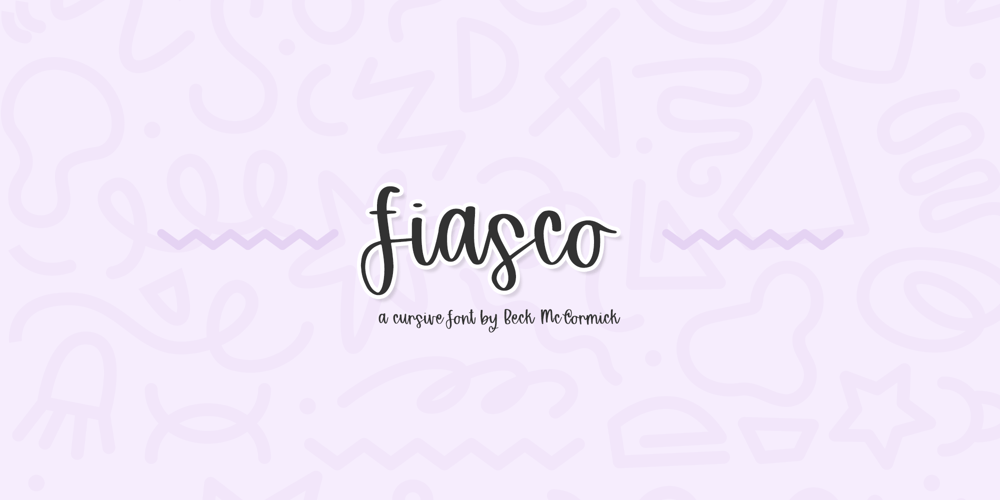
Fiasco Cursive Font Font Family was designed by Beck McCormick and published by BeckMcCormick. Fiasco Cursive Font contains 1 styles and family package options. Introducing Fiasco Script, a bouncy modern calligraphy font. Fiasco is a clean cursive font with a feminine aesthetic, making it a perfect choice for designing feminine logos & branding, cute paper products like wedding invitation suites, or for displaying headlines on your website. Fiasco can also be used for other print design like magazines and flyers or printed marketing materials. This font can also be used for digital marketing materials and social media items! Fiasco Script’s clean edge makes it a great candidate for craft projects on your Cricut or Silhouette machine; it cuts beautifully!Fiasco Script includes:- full upper + lowercase characters- numbers + punctuation- 2 ligatures — ox, tt- PUA-encodingExtensive Language Support:Western European, Central European, South Eastern European, South American, Oceanian, Vietnamese, EsperantoFiasco Script can be used with graphic design programs such as Illustrator or Photoshop, word processing programs like Pages or Word, Design Space for Cricut, Silhouette, Procreate, Canva Pro, Glowforge, GoodNotes, & more. This font is an installable for desktop & laptop machines, as well as iPads or iPhones. See below for links to help with installation.